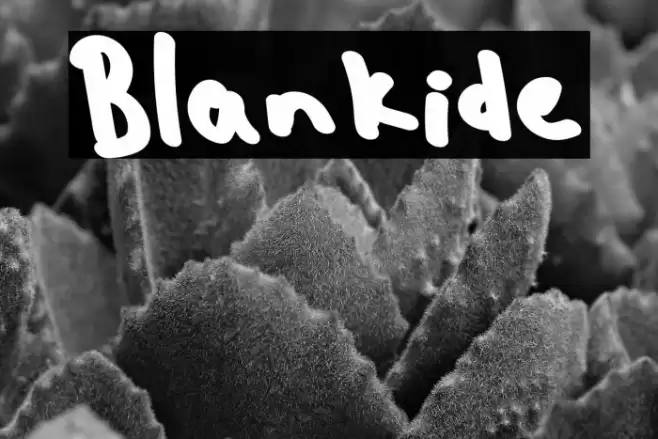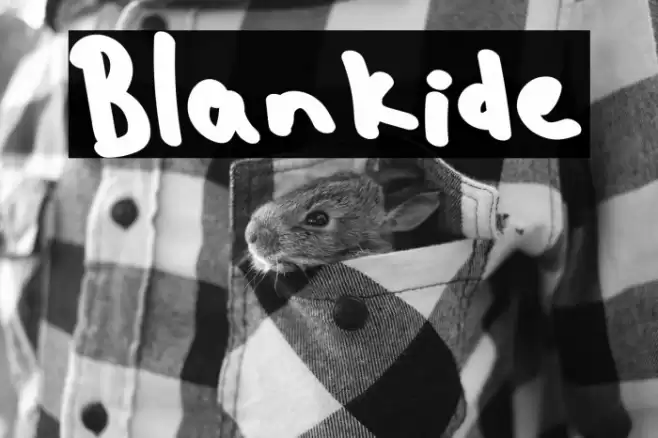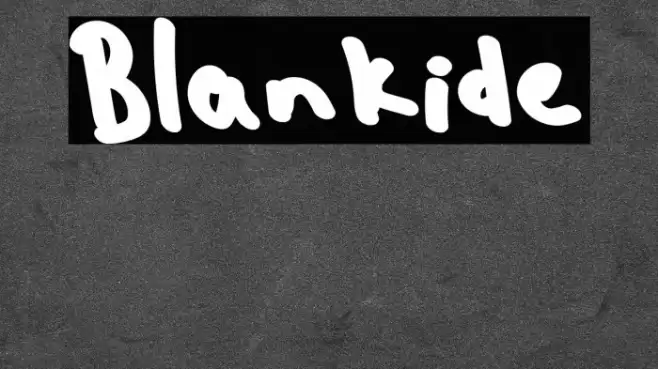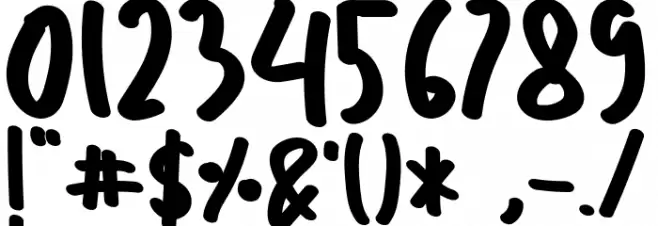
Blankide Font
Blankide Description
This font features a playful and informal handwritten style, characterized by its bold and slightly irregular strokes. The letters have a casual, friendly appearance, with rounded edges and a consistent thickness throughout. The uppercase and lowercase letters maintain a cohesive look, while the numerals and special characters complement the overall design. This font exudes a sense of creativity and spontaneity, making it ideal for projects that require a personal touch.
A playful, bold handwritten font with a casual and friendly style from Regular fonts.
- Proposed Projects: Great for children's books, greeting cards, posters, and creative branding projects.
- Overall Style: Casual, Playful